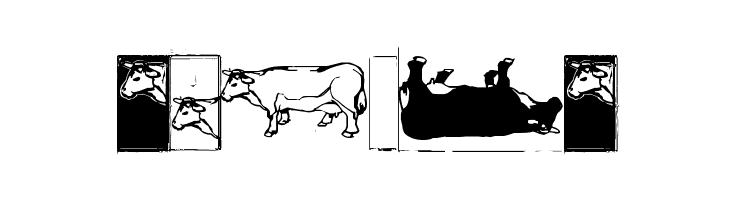
• Pozo
A bold, distressed font with a hand-drawn, grungy style.
• Pozotwo
A bold, distressed font with a rugged, stamp-like appearance.
• in_my_head
A bold, playful font with a hand-drawn, graffiti-like style.
• They're coming to take me away
A distressed, grungy font with bold, irregular strokes and a hand-drawn feel.
• 60sekuntia
A bold, distressed font with a grunge aesthetic and textured appearance.
• IKHIOOGLAwithout
Minimalist, box-outline geometric font with extreme abstraction.
• IKHIOOGLAonezero
A bold, distressed font with a vintage, grunge aesthetic.
• IKHIOOGLAcow
Decorative font with cow illustrations.
• IKHIOOGLAone
A bold, distressed font with a rugged, industrial style.
• IKHIOOGLA
A bold, distressed font with a vintage, grunge aesthetic.